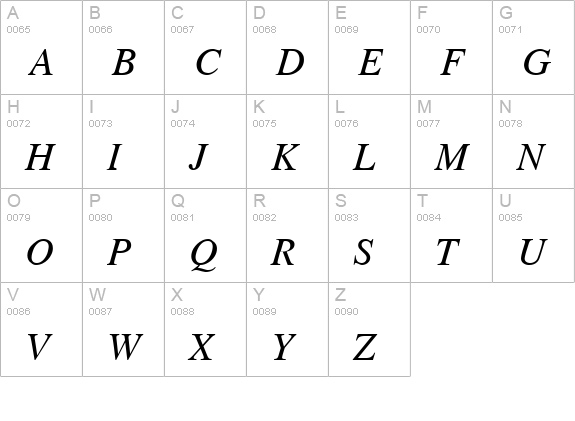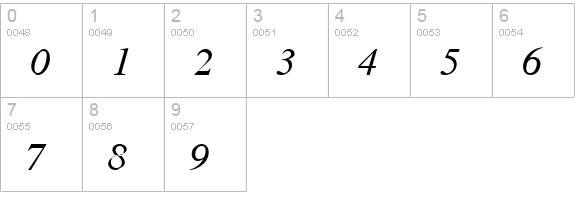
Cardiff Italic Font Details
Cardiff Italic is a distinctive, italic variant in the Cardiff typeface family \xE2\x80\x94 well suited to design and typography projects.
Introducing Cardiff Italic, a stunningly elegant and versatile font that effortlessly blends classic aesthetics with a modern twist. This captivating typeface embodies sophistication and refinement, making it the perfect choice for those seeking to add a touch of elegance to their design projects. Crafted with meticulous attention to detail, Cardiff Italic boasts beautifully curved letterforms, exuding a sense of timeless grace. Its delicate strokes and subtle slant create an exquisite balance, ensuring legibility while adding a touch of sophistication. Whether you're creating wedding invitations, branding materials, or editorial designs, Cardiff Italic effortlessly elevates any project it graces. Its versatility is unmatched, allowing you to effortlessly convey a wide range of emotions and messages, from the most formal and professional to the whimsical and creative. But what truly sets Cardiff Italic apart is its accessibility. We believe that creativity should be free, and that's why we are thrilled to offer this remarkable font completely free of charge. Yes, you read that right – Cardiff Italic is freely available to download at FontsMarket.com. So, whether you're a professional designer looking to add a touch of sophistication to your work or a hobbyist exploring the world of typography, Cardiff Italic is the ideal choice. Download it today from FontsMarket.com, and let your creativity soar with this exquisite and freely accessible font.